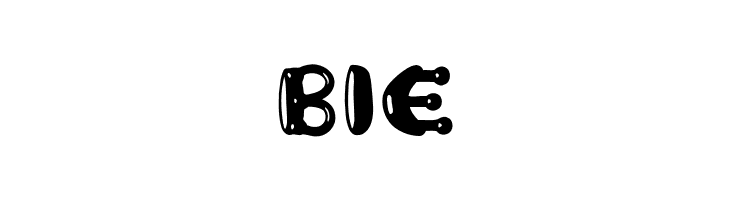
A bold, decorative font with gear-like circular enclosures around each character.
A bold, playful font with rounded characters and circular cutouts, perfect for decorative use.
A bold, decorative font with a vintage, marquee-style design.
A bold, geometric font with a futuristic and digital style.
( Vladimir Nikolic - www.coroflot.com/vladimirnikolic )
A modern, bold italic font with a dynamic and energetic style.
( Vladimir Nikolic - www.coroflot.com/vladimirnikolic )
A bold, modern font with geometric shapes and clean lines.
A bold, decorative font with a geometric structure and textured interior pattern.
A bold, geometric font with a pixelated, digital appearance.
A bold, geometric font with a modern, industrial aesthetic.
( Vladimir Nikolic - www.coroflot.com/vladimirnikolic )
A bold, shadowed font with sharp serifs and a three-dimensional effect.